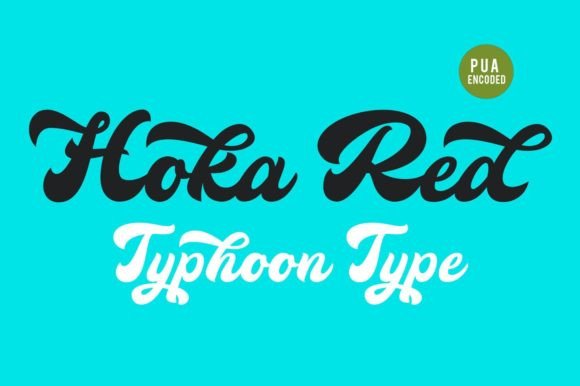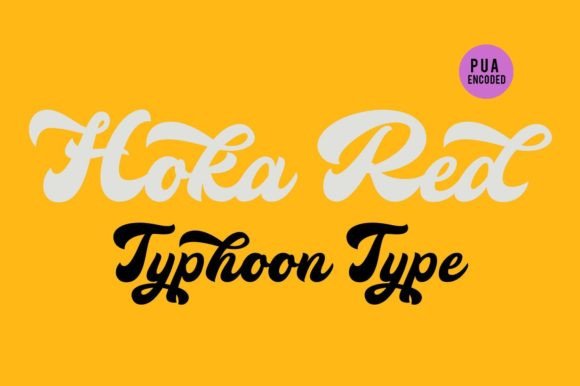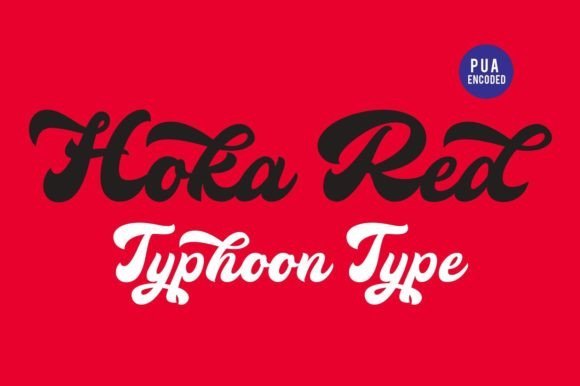
Introduction to Hoka Red Font
Hoka Red is a Script & Handwritten font.
It looks stunning on wedding invitations, thank you cards, quotes, greeting cards, logos, business cards, and any other design that needs a handwritten touch This font is PUA encoded, which means you can access all of the glyphs and swashes with ease.